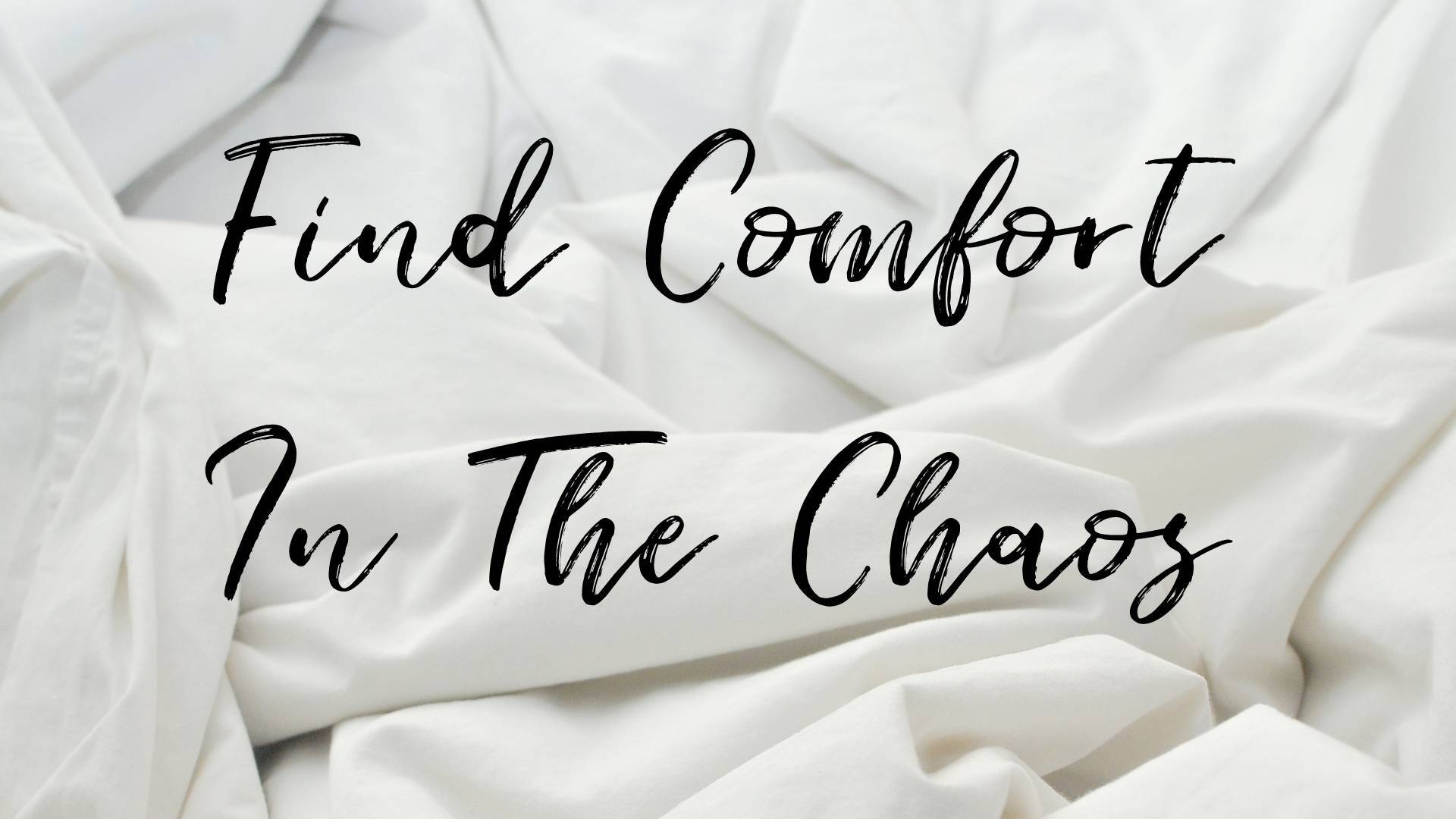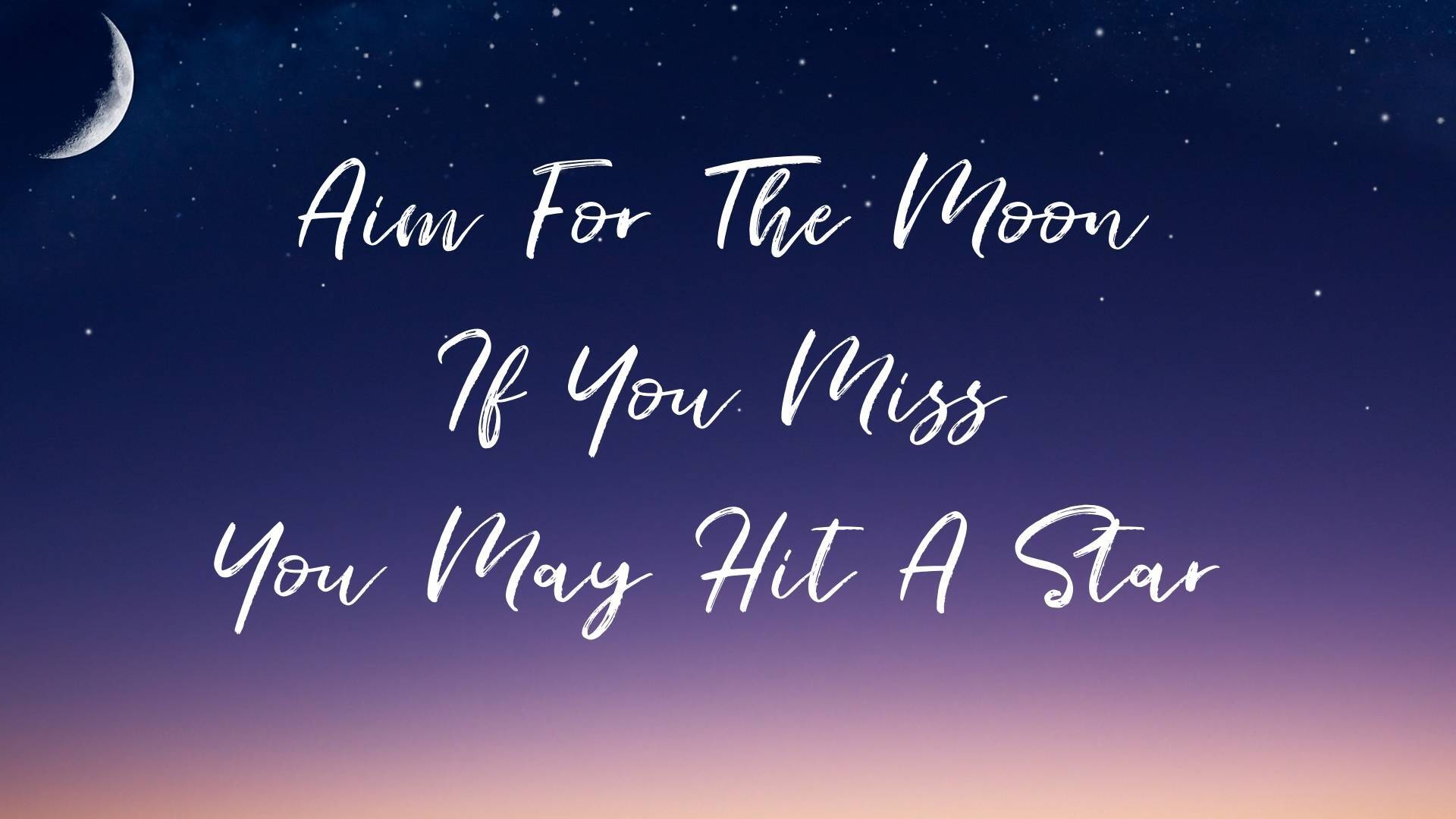
Seaport Brush Font
This font is a graceful, artistic, and casual typeface that has the most elegant brush-painted characters which will provide an extremely fantastic look to your creative designs. The designer of this handcrafted typeface is a remarkable type designer named Fontforestry, who has the greatest name in the designing field. And it was the first creative design of the Fontforestry that has been getting immense success on the globe and applied by numerous prominent designers and organizations.
History:
This decorative typeface provides a quirky look that same as the 1960 and 70s fashions and sport-related fonts such as Bromello font, a very unique and fun at the same time.
Seaport font comes in 2 versions, including regular and alternate and each version is having more than 1000 high-quality glyphs, texture ligatures, standard swashes, glimpse, ascenders, and descenders.
Moreover, this brush script font provides more than 300 defined characters, including uppercase, lowercase, fashionable numerals, punctuation marks, mathematical operators, currency symbols, updated icons, and lots of special characters that make it suitable for multiple applications, brands, products, etc.